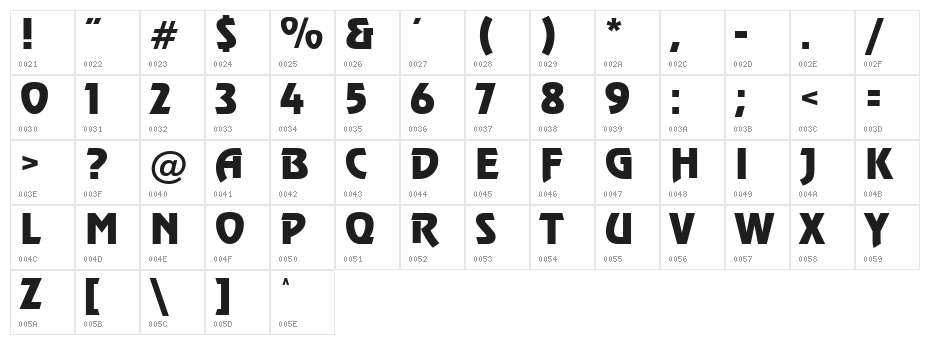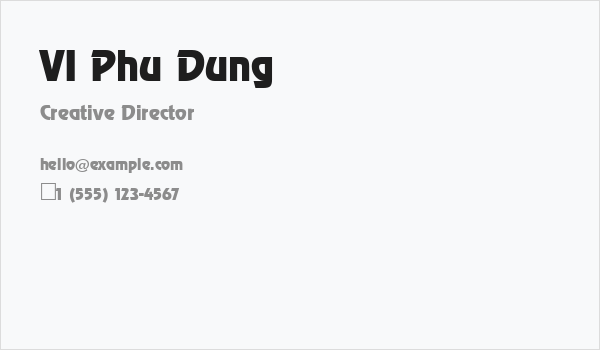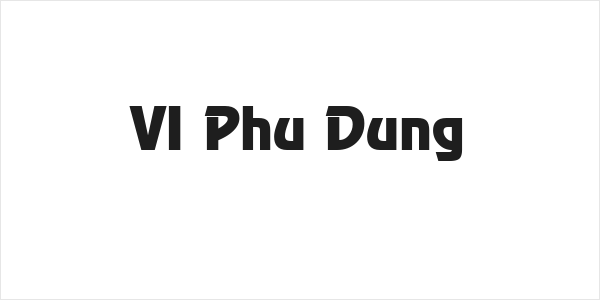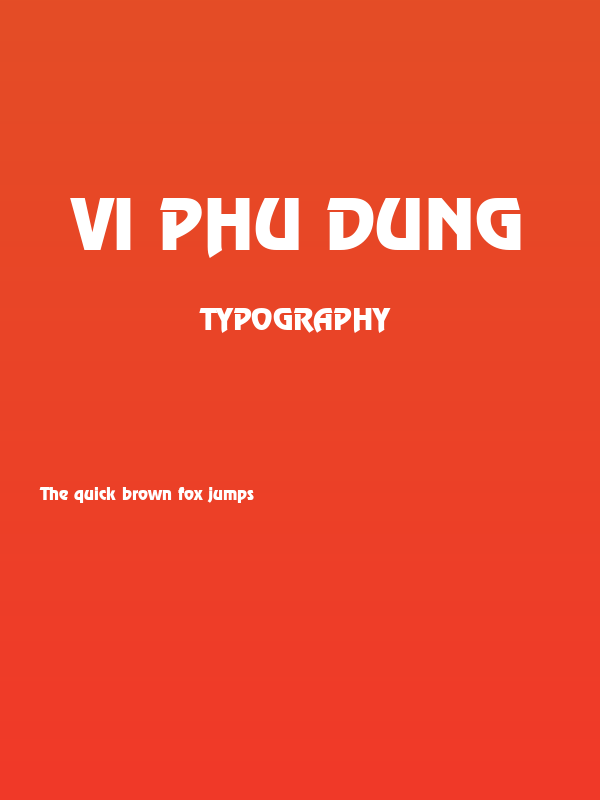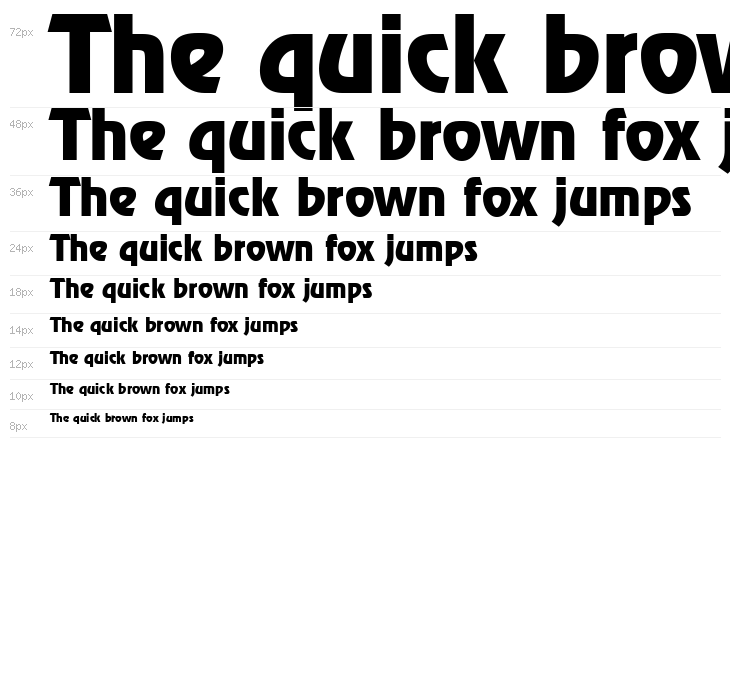
VI Phu Dung Font
VI Phu Dung Description
This font features bold, geometric shapes with a strong presence. The uppercase letters are characterized by sharp angles and a slightly condensed form, giving them a modern and assertive look. The lowercase letters maintain the boldness, with rounded edges that soften the overall appearance. Numbers are consistent with the letterforms, ensuring a cohesive look across all characters. Special characters are designed with the same bold and geometric style, making them stand out. The font's unique style makes it suitable for impactful designs where attention is key.
Proposed ProjectsIdeal for branding, posters, headlines, and any design requiring a strong visual impact.